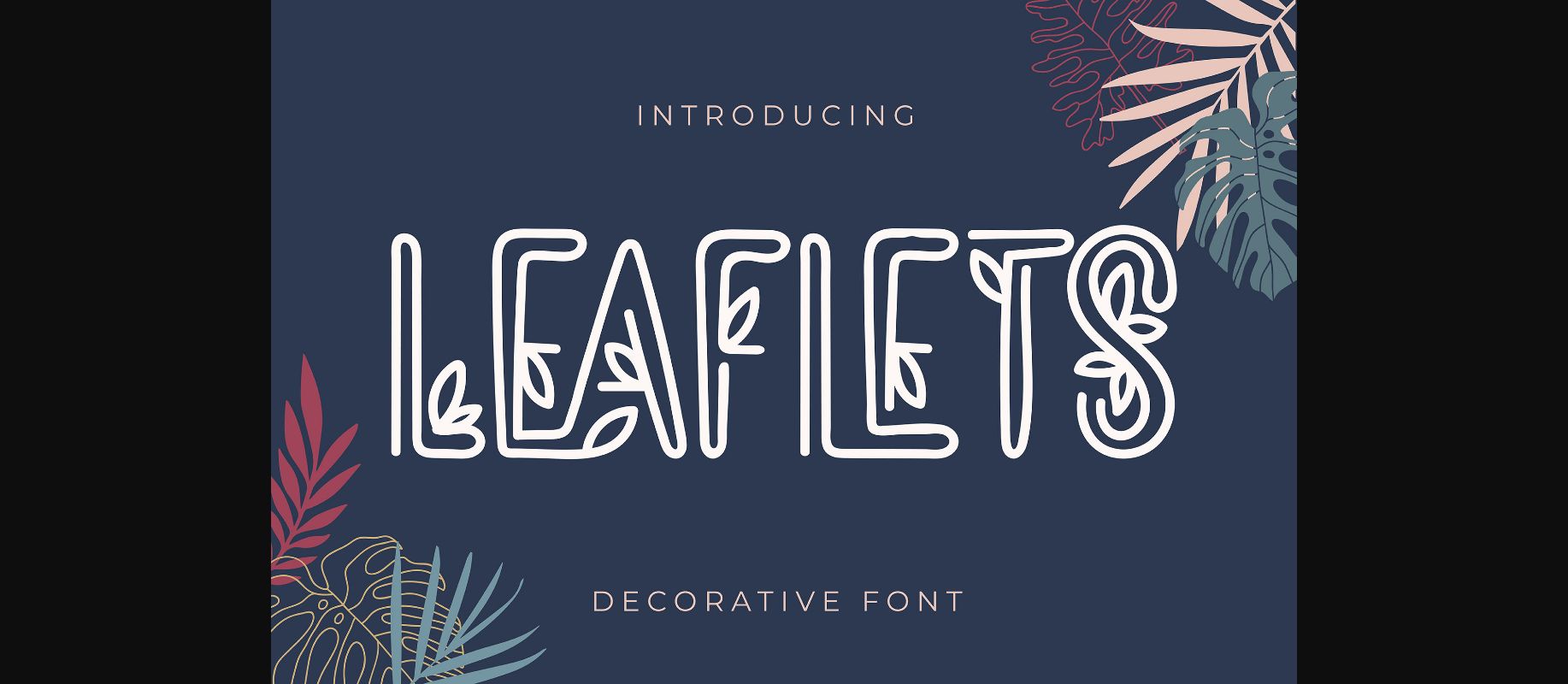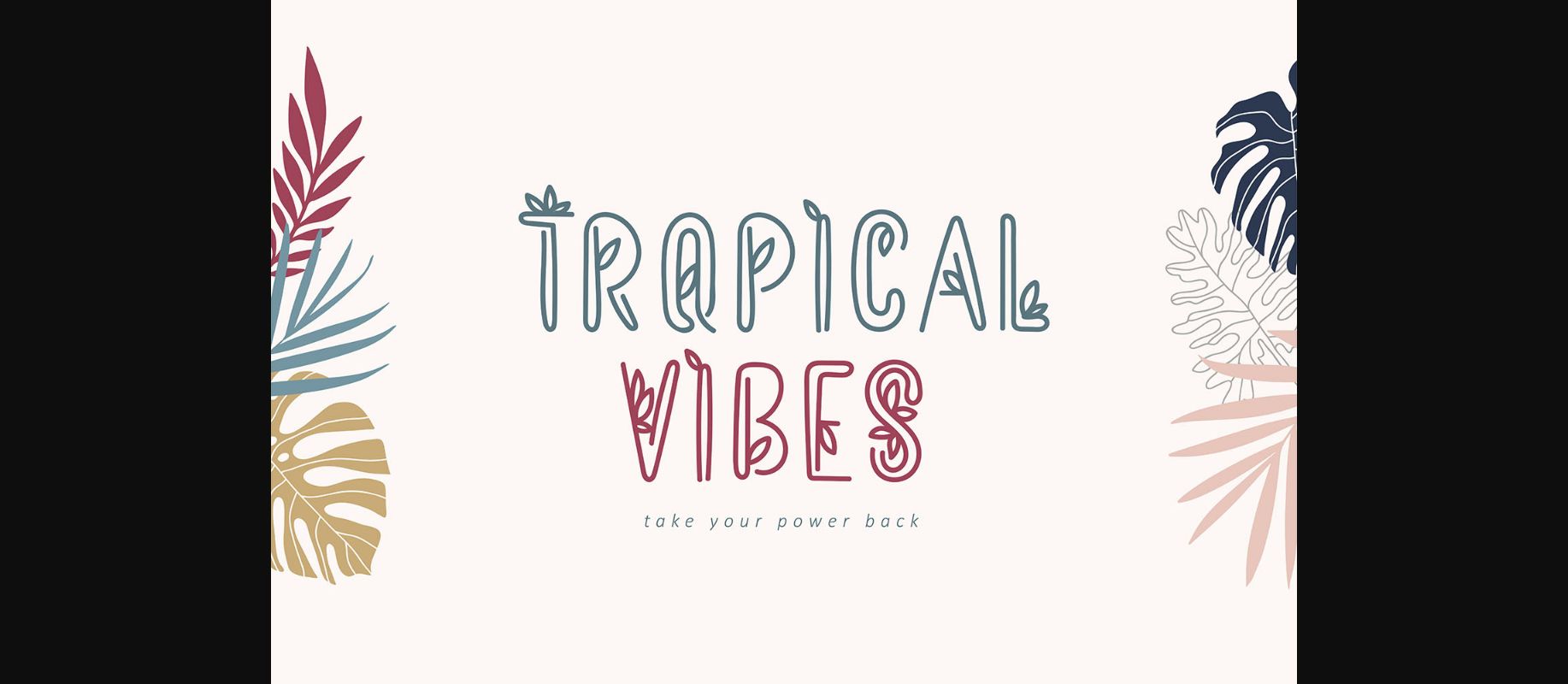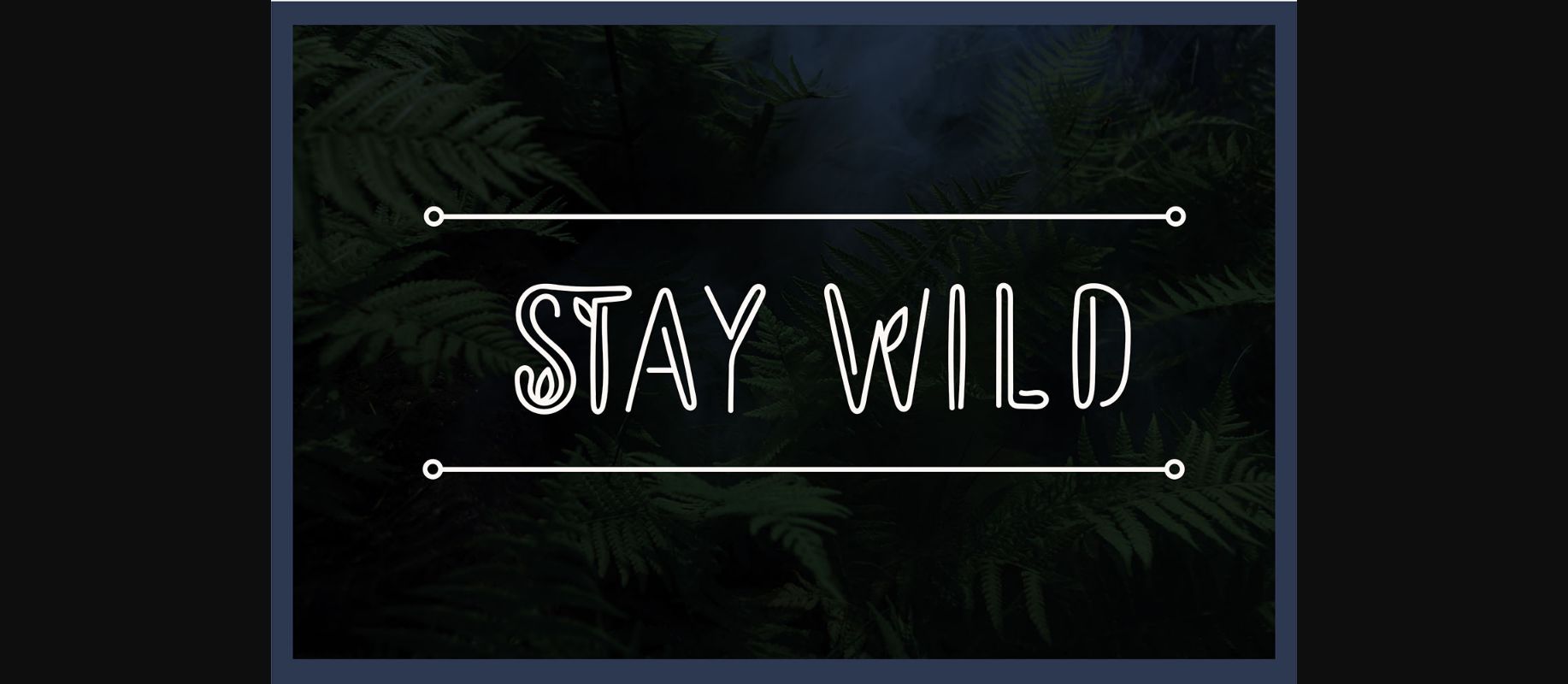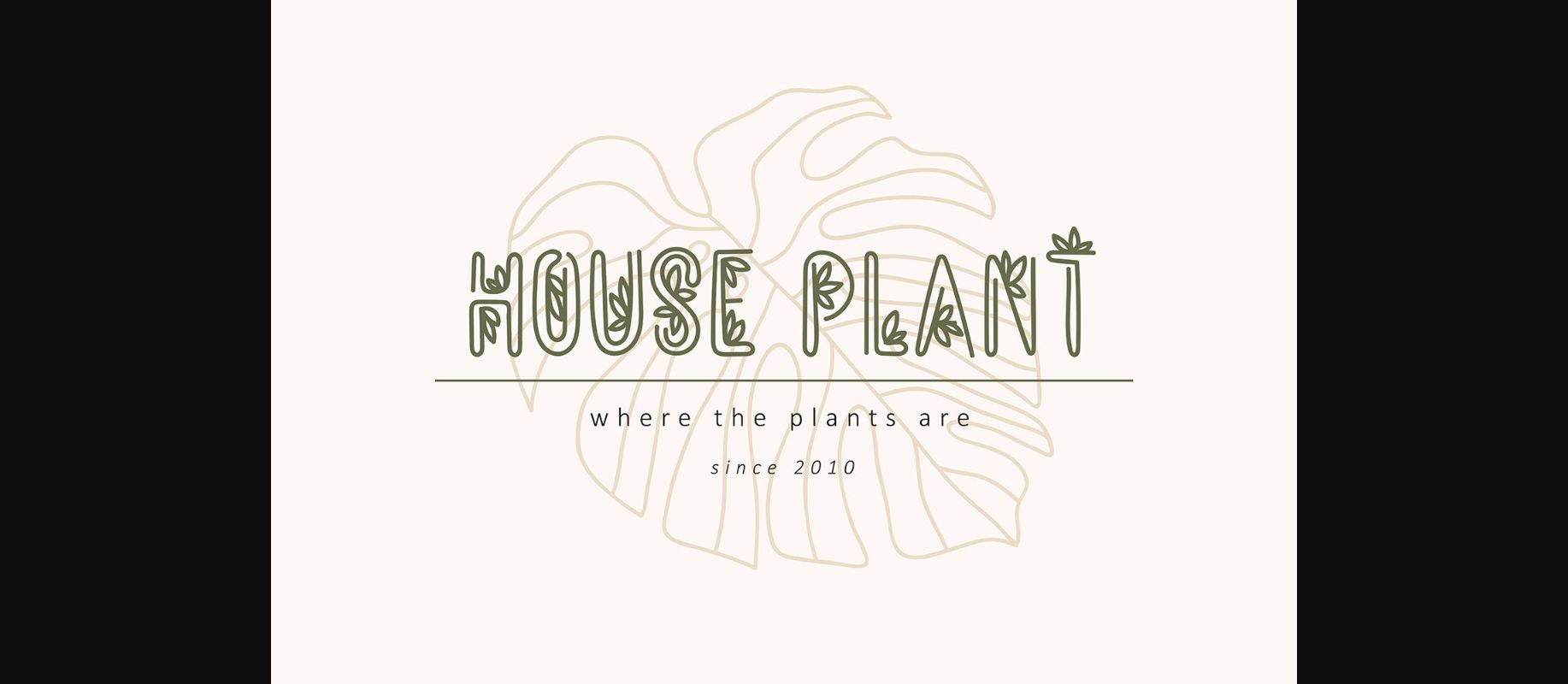
About Leaflets Font
Leaflets is a playful and unique decorative font, featuring lovely leaves as ornaments. Whether you’re using it for crafting, digital designing, presentations or greeting cards making, it’s perfect!